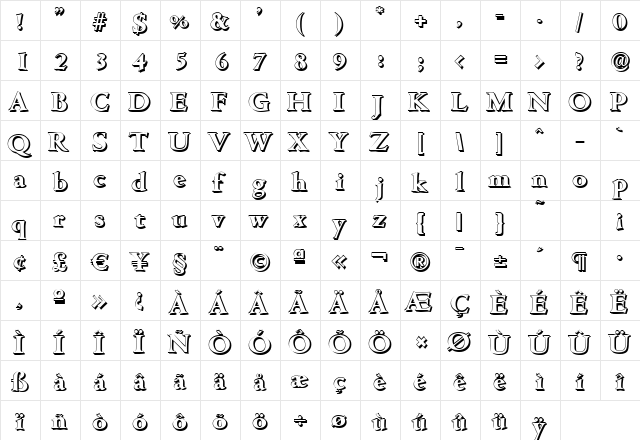
JohnBeckerShadow-ExtraBold Regular
Design Context for JohnBeckerShadow-ExtraBold Typeface
JohnBeckerShadow-ExtraBold brings ornamental detail and strong personality to headlines and identities, where visual impact matters more than quiet functionality. The heavy weight commands attention and anchors typographic hierarchies.
Font Pairing: Pair with a clean neutral sans-serif for body copy to let JohnBeckerShadow-ExtraBold's character lead without overwhelming the composition.
Pro Tip: Use JohnBeckerShadow-ExtraBold exclusively at display sizes — it was designed to be seen, not read at length. Let a neutral companion handle body copy.